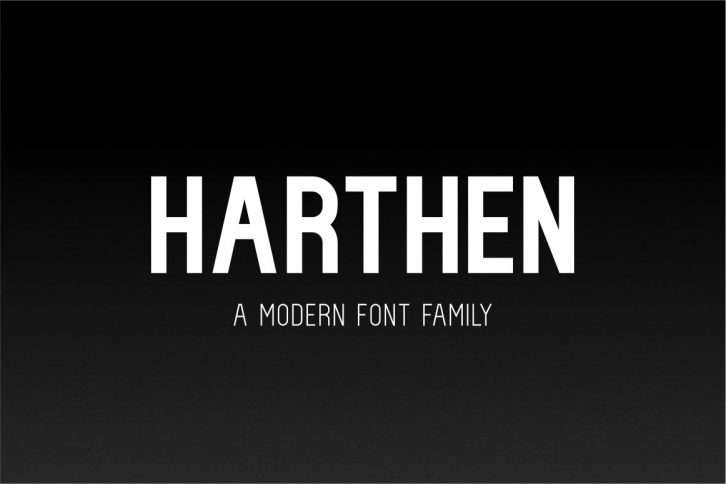
Harthen sans serif family is a great font that was designed by suhadidesign. Imagine the amount of combinations you can create using this font! The archive is 15.58 MB and it was released on May 18, 2022. Harthen sans serif family looks beautiful on wedding invitations, greeting cards, logos, posters, labels, t-shirt designs, logos, business cards and is perfect for use in ink or watercolor works, fashion, magazines, packaging and food menus, children's books and more!